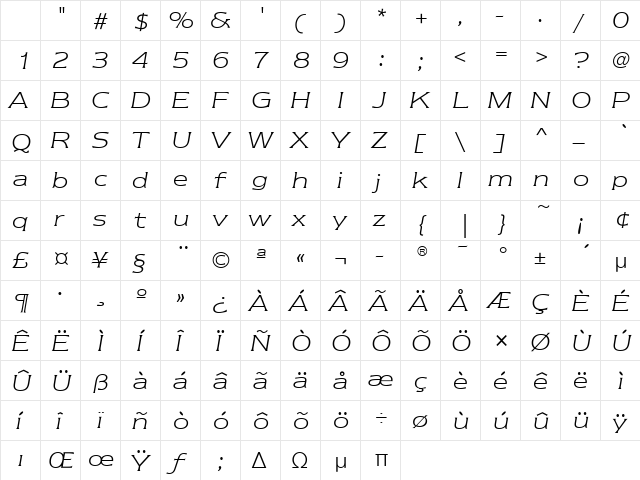
Complete NewtextITC Light Italic glyph index. Displaying only characters natively supported by NewtextITC Light Italic font.
NewtextITC is a composed and adaptable typeface that performs quietly and consistently across a wide range of design contexts. The slanted form adds forward momentum and visual energy. Its slender proportions lend an understated elegance to any composition.